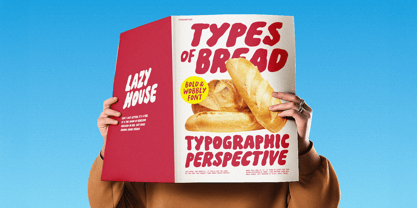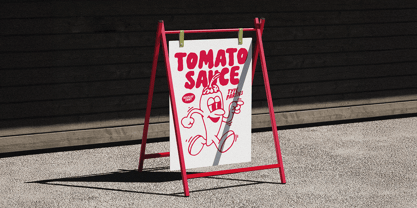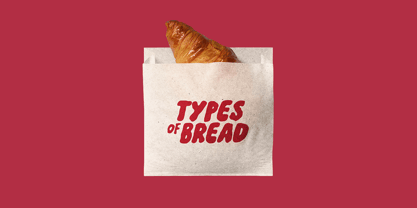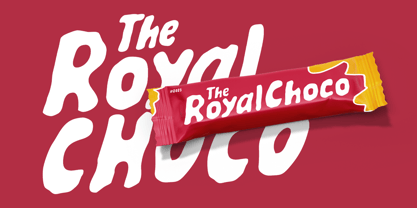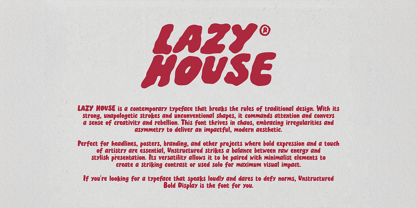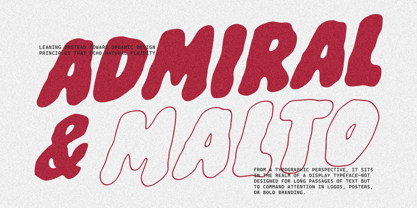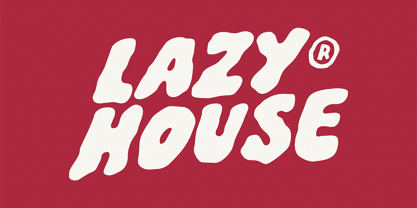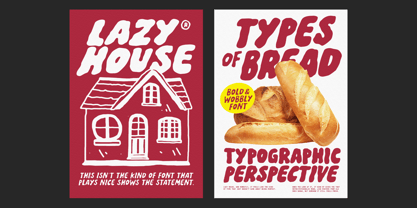
ATP Lazy House
by Typeparties
The ATP Lazy House Font Family was designed by Thufail Al ghifary and published by Typeparties. ATP Lazy House contains 4 styles and family package options. More about this family
LAZY HOUSE carries a bold, liquid-like form that feels both playful and rebellious. Its swollen, irregular contours give the impression of letters melting or dripping, creating a strong sense of motion and softness at the same time. From a typographic perspective, it sits in the realm of a display typeface—not designed for long passages of text but to command attention in logos, posters, or bold branding. Its exaggerated, blob-like shapes break away from geometric rigidity, leaning instead toward organic design principles that echo natural fluidity.